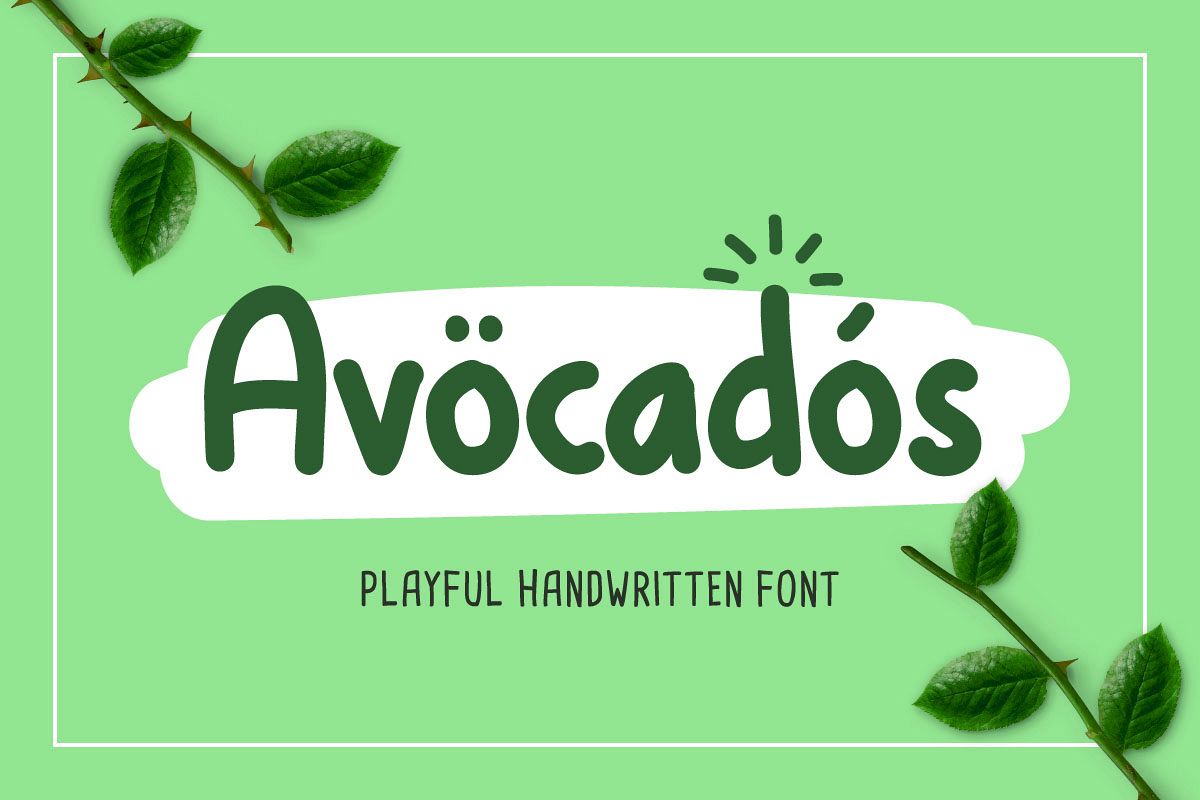
Avocados
Introducing Avocados Typeface - a handwritten font that is very fresh and unique style handmade. Avocados Typeface is perfectly suited to logo, tationery, poster, apparel, branding, wedding invitation, card, tagline, layout design, and much more !!